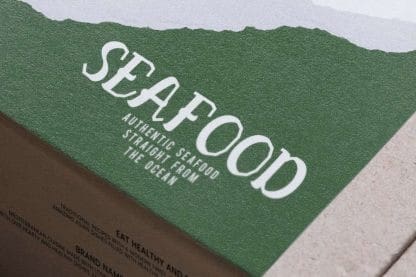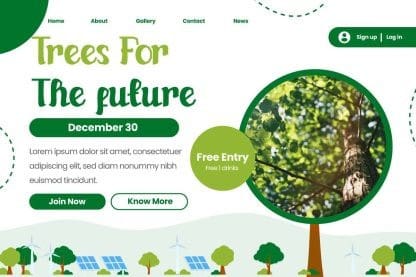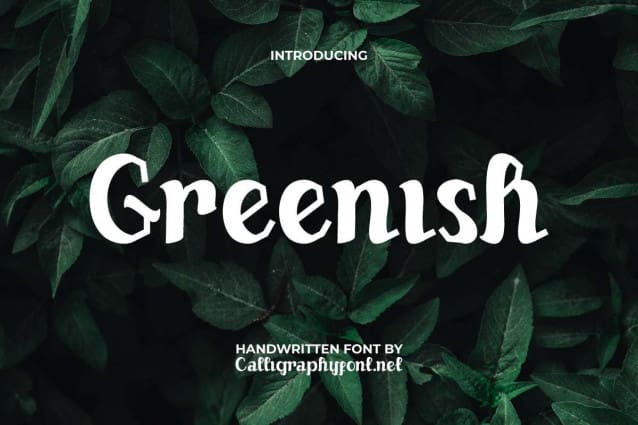
Geenish Display Font
Geenish Display Font is a stylish strong display font which will suitable for many industries : restaurants, fashion, food and beverages, apparel industry, etc. You can use the font for brand visuals, menu heading, promotions and anywhere.